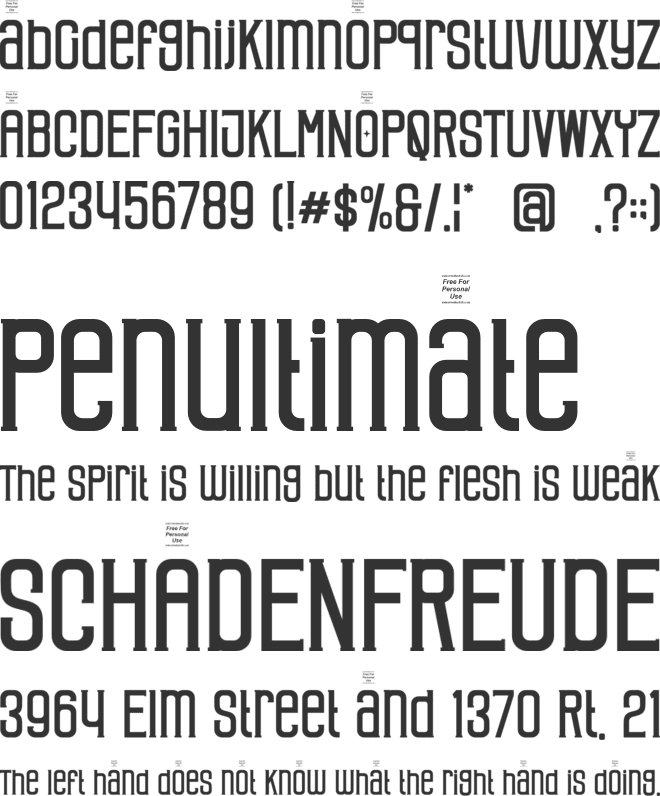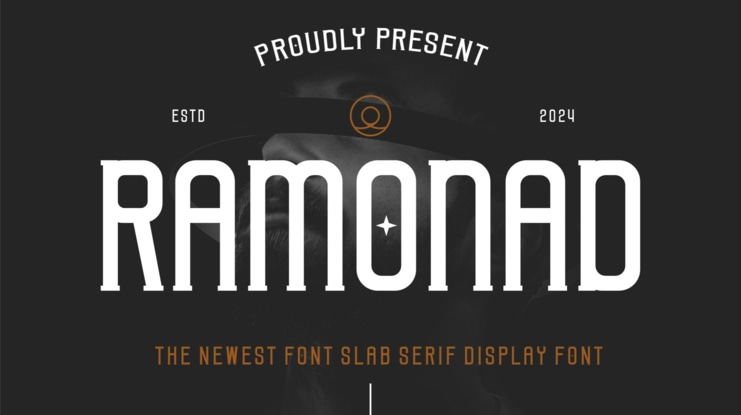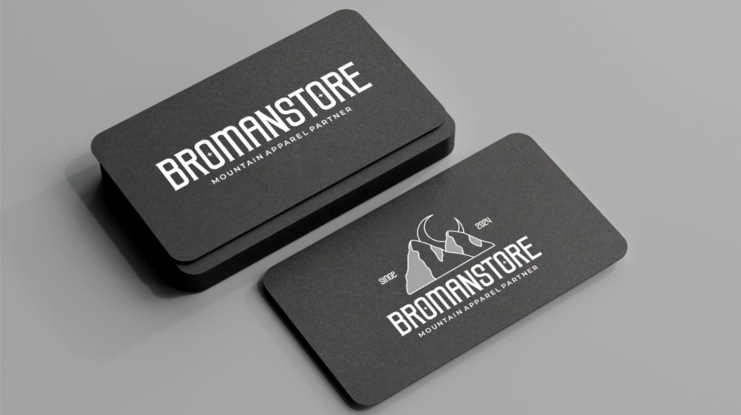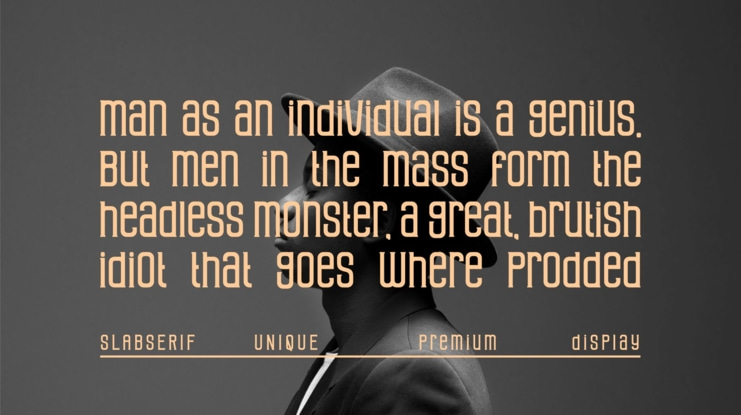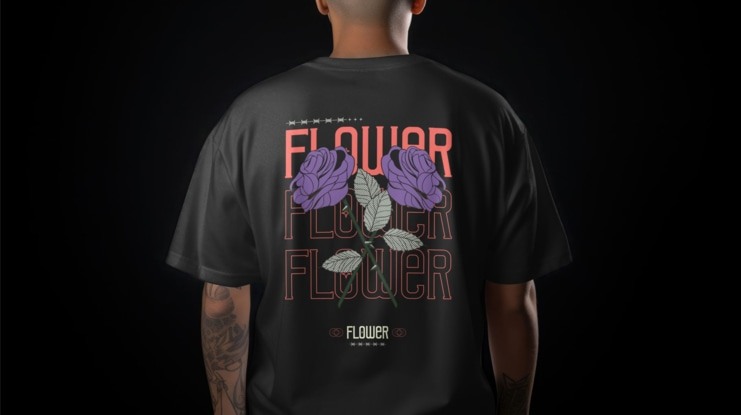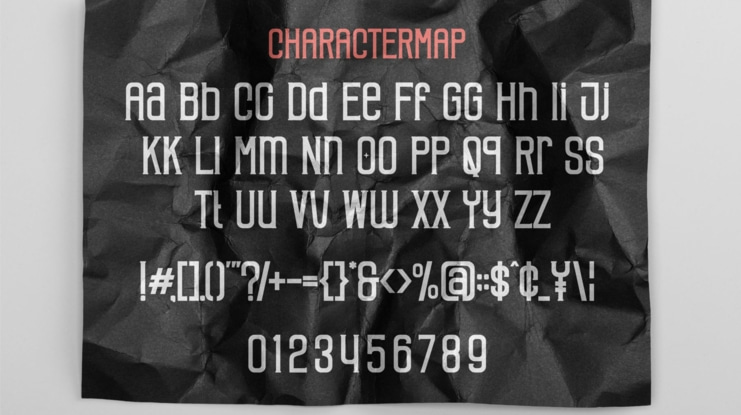
Ramonad Font
Introducing Ramonad The New Slab Serif Unique Display Font is a modern, trendy, can be use logotype and futuristic display font. It has a unique character. It is perfect to be combined with invitation card designs, company logos, movie titles, movie names, business cards, book titles, brand names and various other designs.
- Uppercase and lowercase
- Numbering and Punctuation